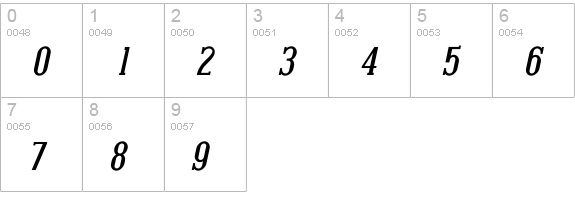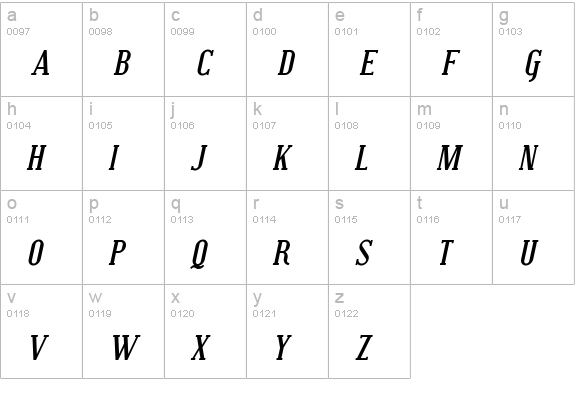
Covington SC Bold Italic is a strong, high-contrast, italic variant in the Covington typeface family \xE2\x80\x94 well suited to headlines, attention-grabbing titles, and strong calls-to-action.
Covington SC Bold Italic font is a stunning display typeface that exudes elegance and sophistication. With its bold and italic design, this font is perfect for making a statement in your designs. The sleek and modern look of Covington SC Bold Italic font makes it ideal for a wide range of projects, from branding and advertising to invitations and social media graphics. And the best part? Covington SC Bold Italic font is available for free download at FontsMarket.com. This means you can easily add this beautiful font to your collection without breaking the bank. Don't miss out on the opportunity to elevate your designs with the exquisite Covington SC Bold Italic font – download it today and watch your projects come to life!